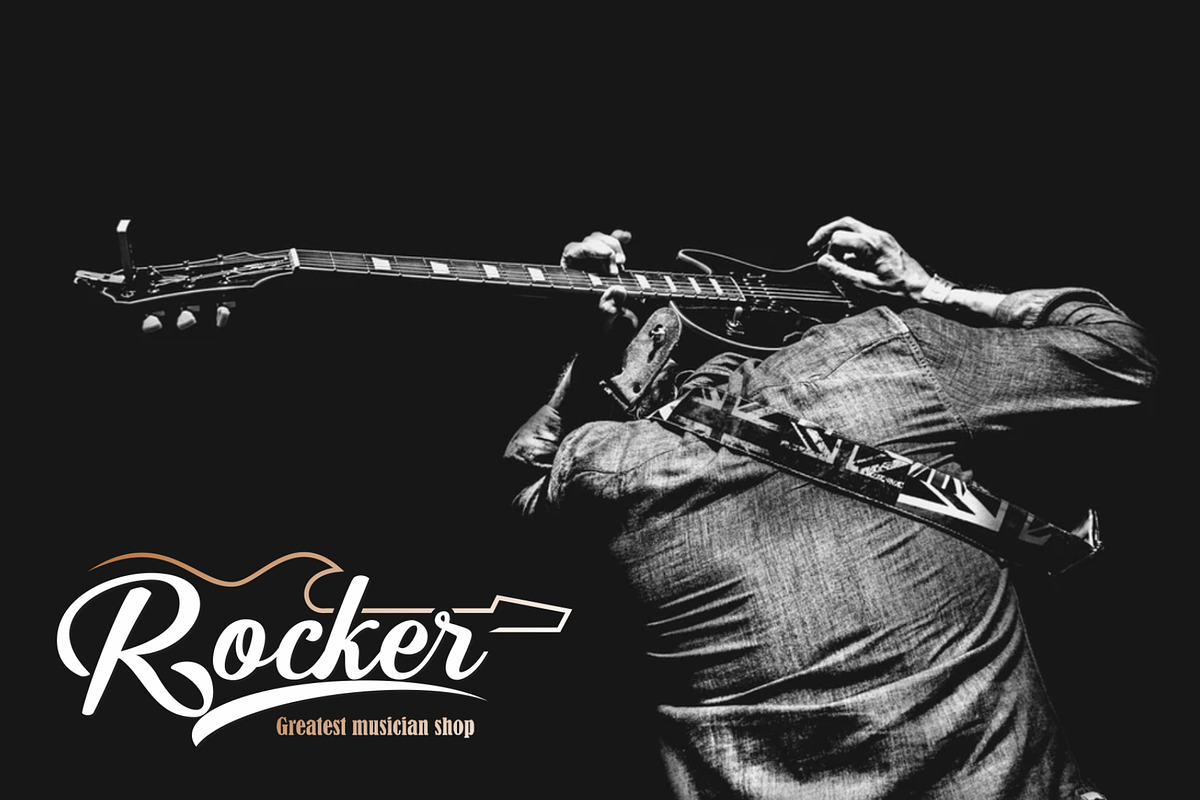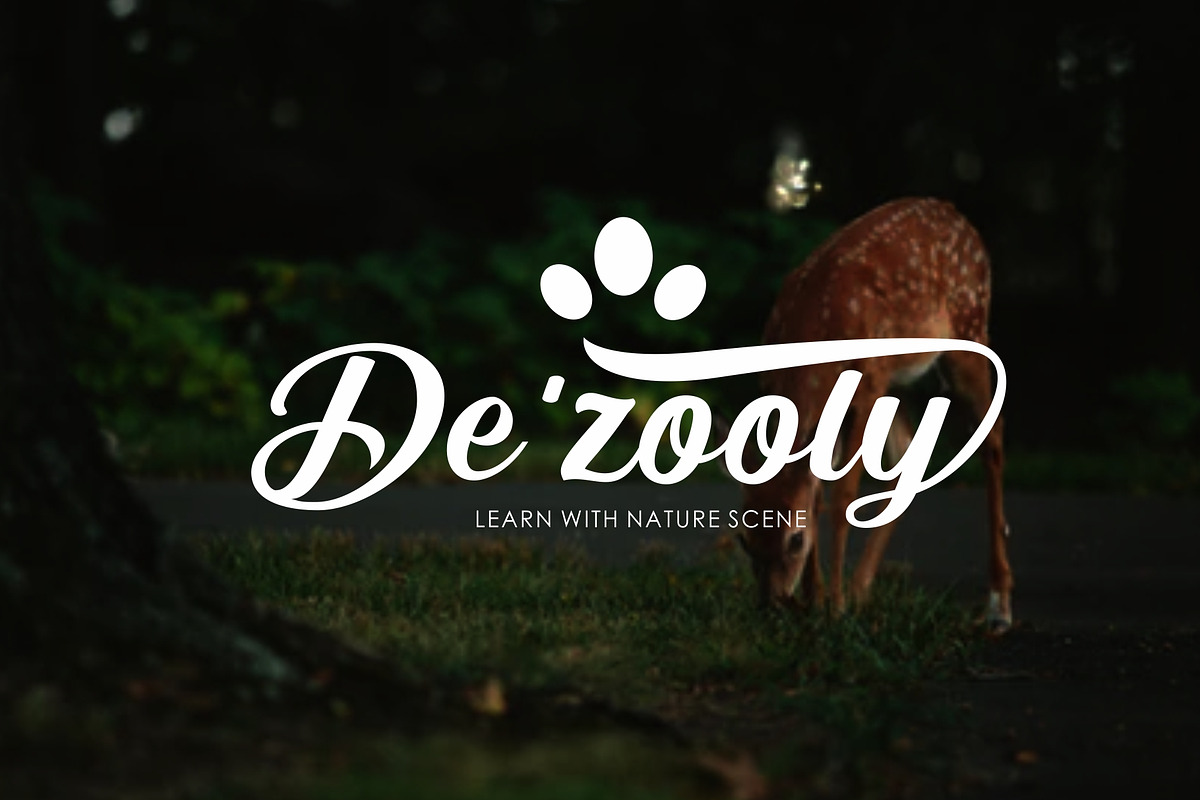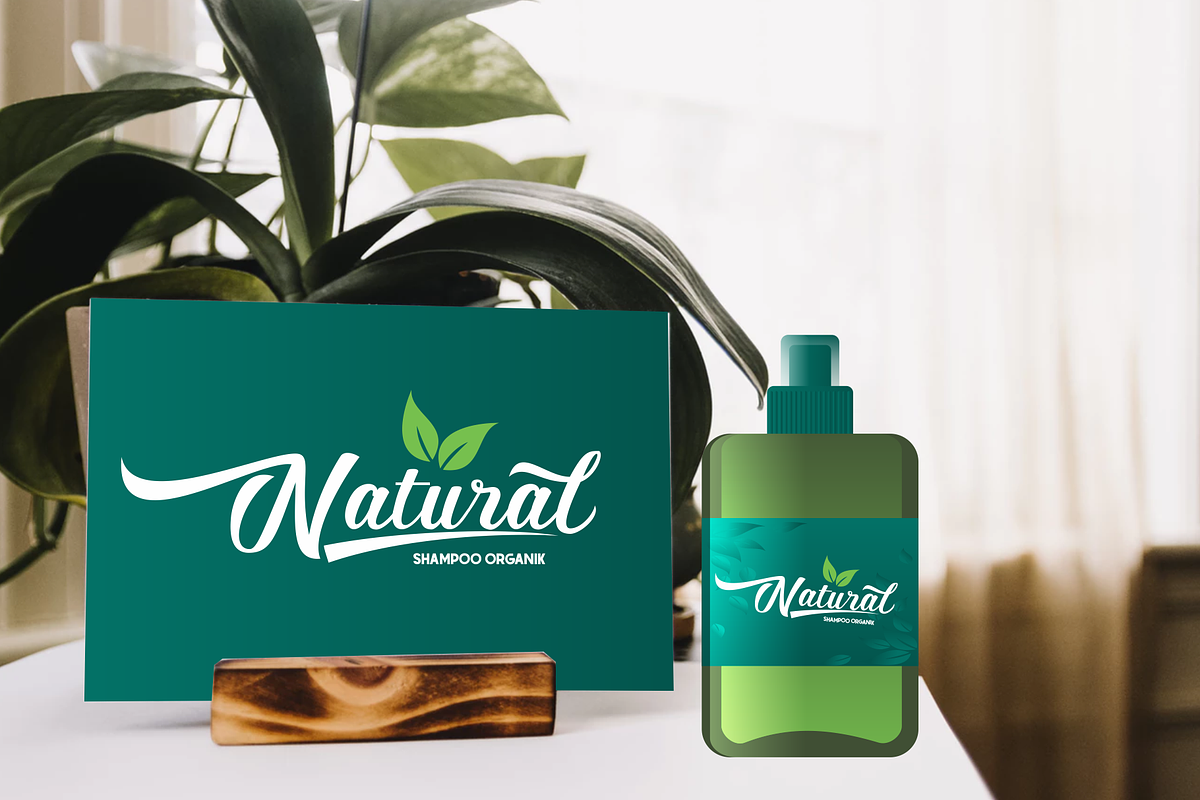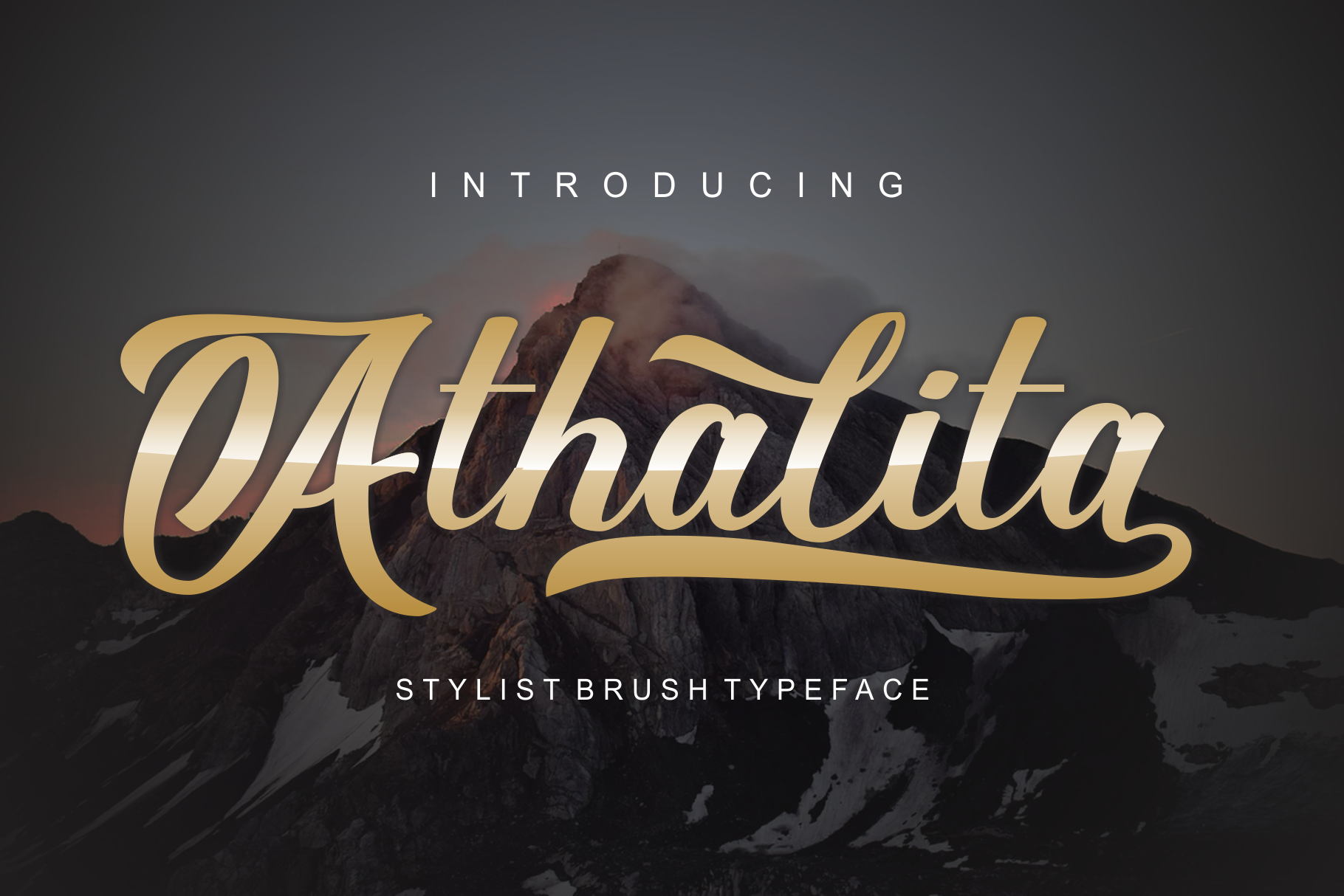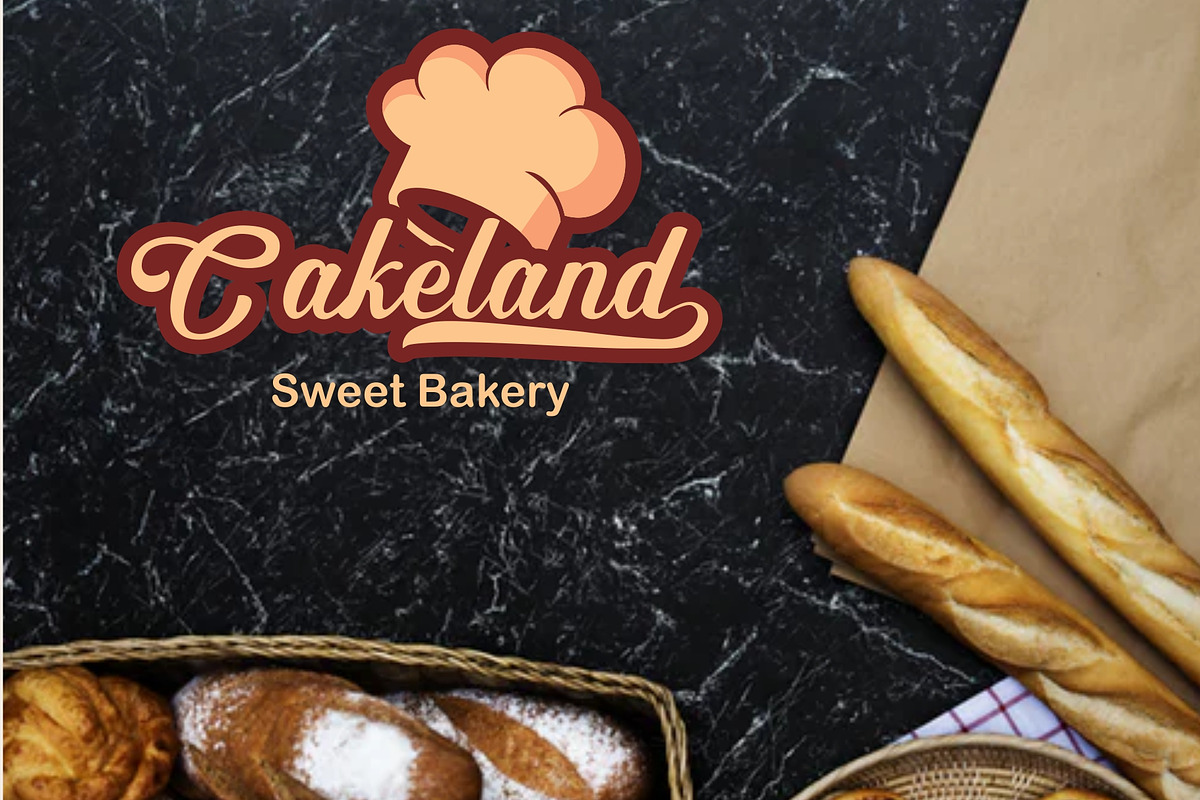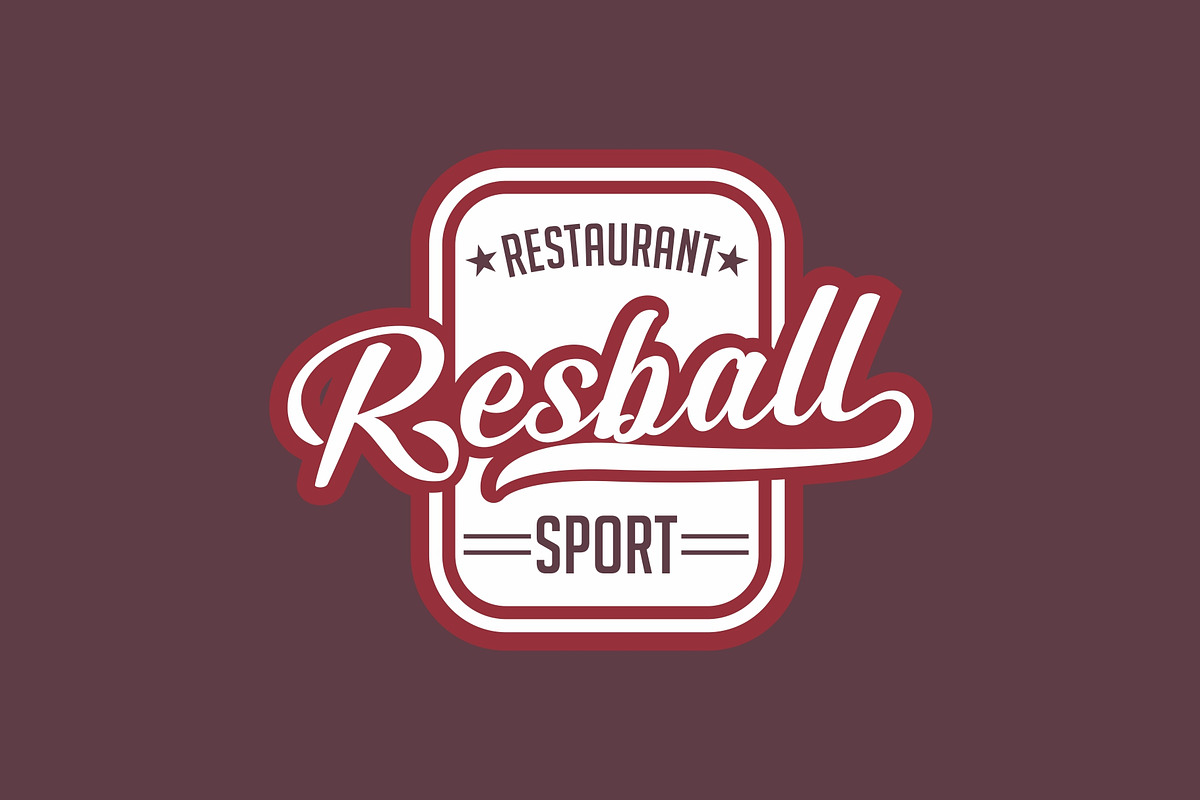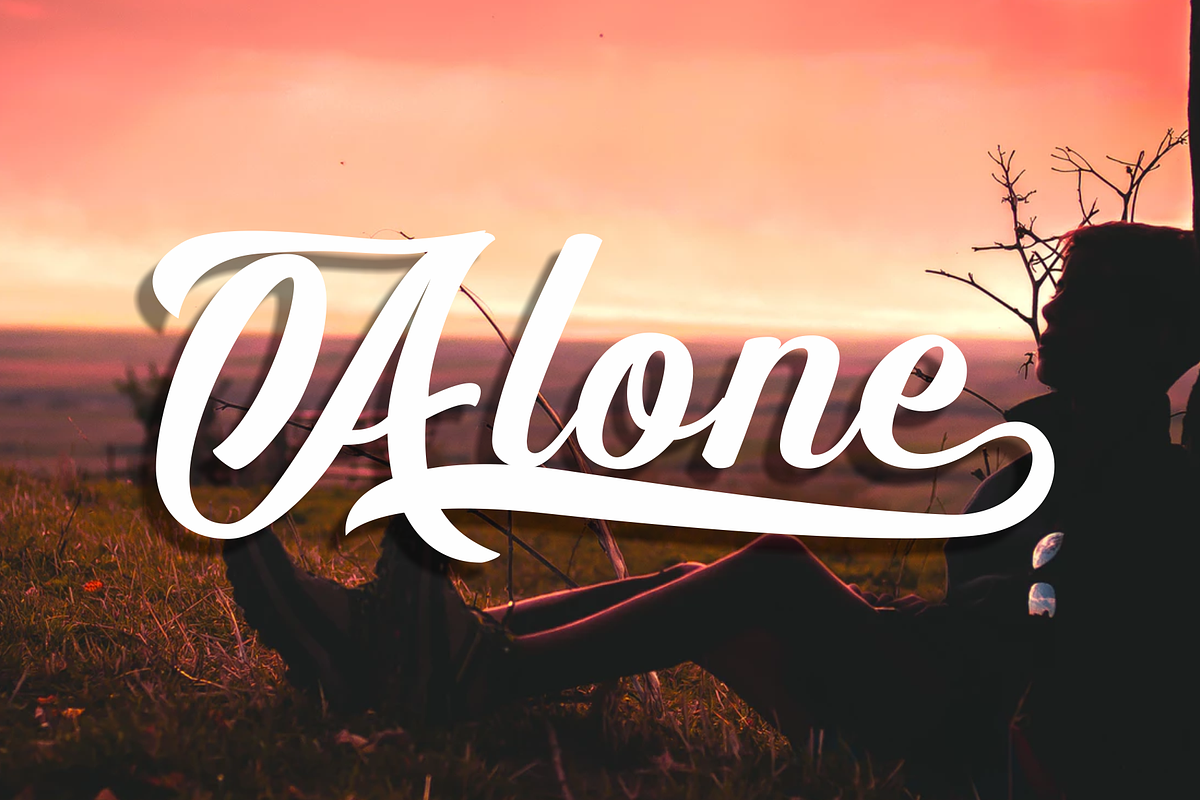
Athalita Brush Script Font
A font design with brush stroke style, looks casual, beautiful, charming, trendy but still timeless. can be applied in various designs. Impressive scratches + Opentype feature Ligature Alternate font Swash Use For Design Logo Design T-shirt Design Graphic Elements